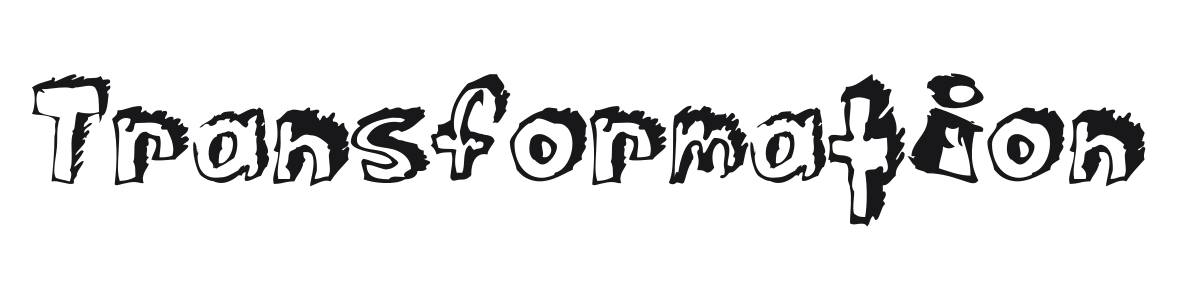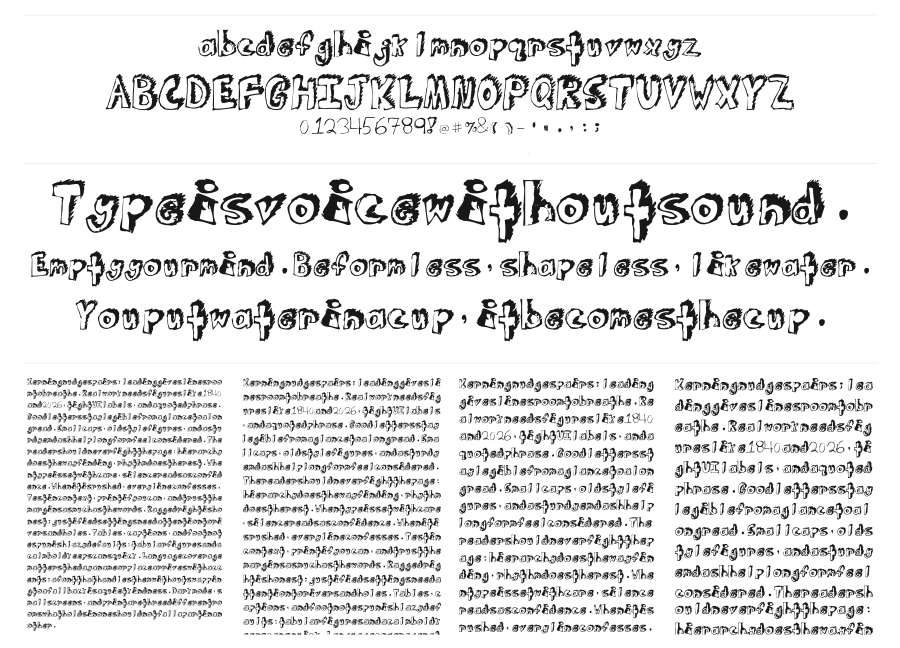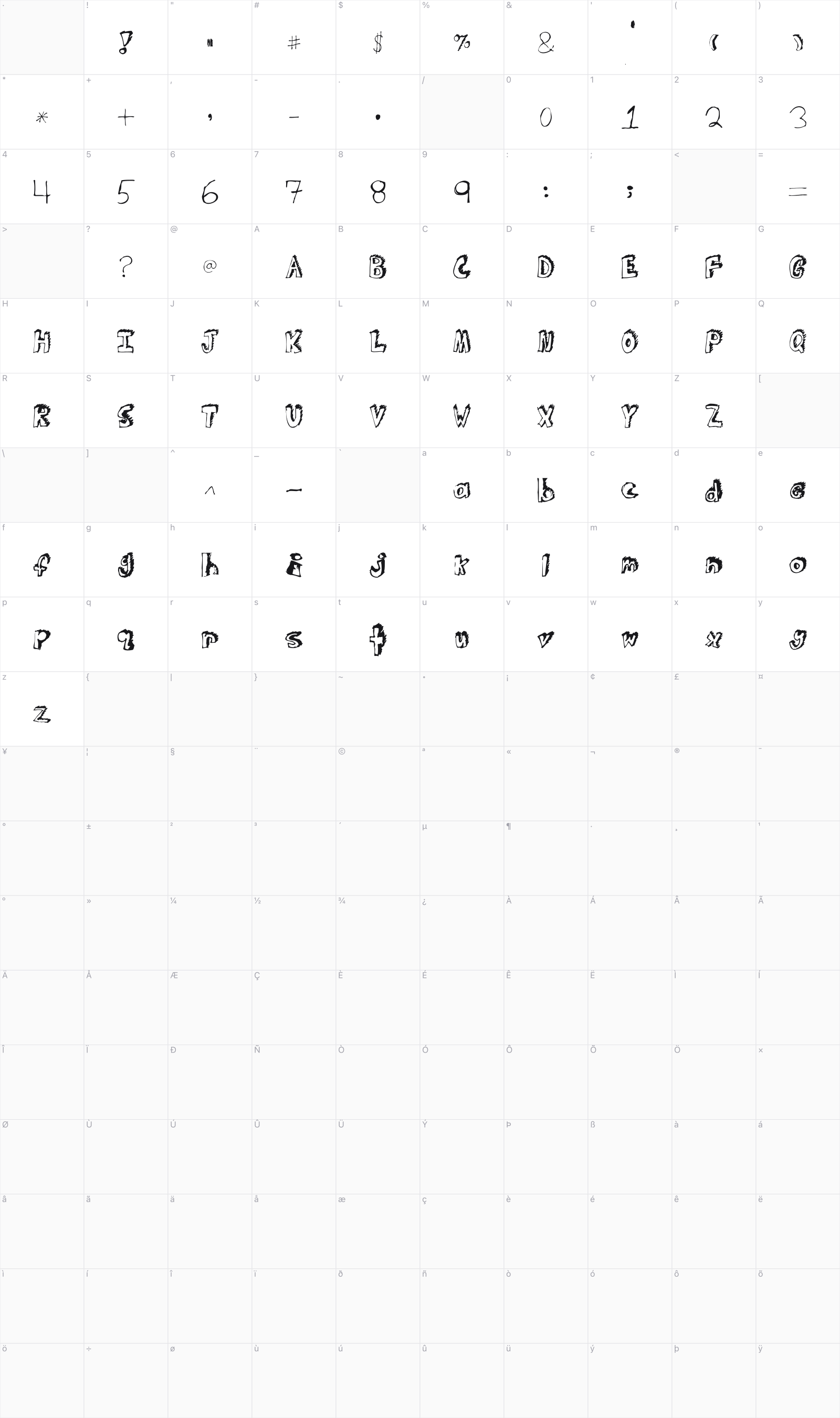
Transformation
by Christine Kirby
Transformation is a heavily distressed serif display font where every character looks like it has been eaten away by time, acid, or something worse. The underlying bold serif structure holds the design together while the eroded, shredded edges give it an unmistakably raw, anarchic energy. Strong for horror, punk, and underground aesthetics at large sizes.